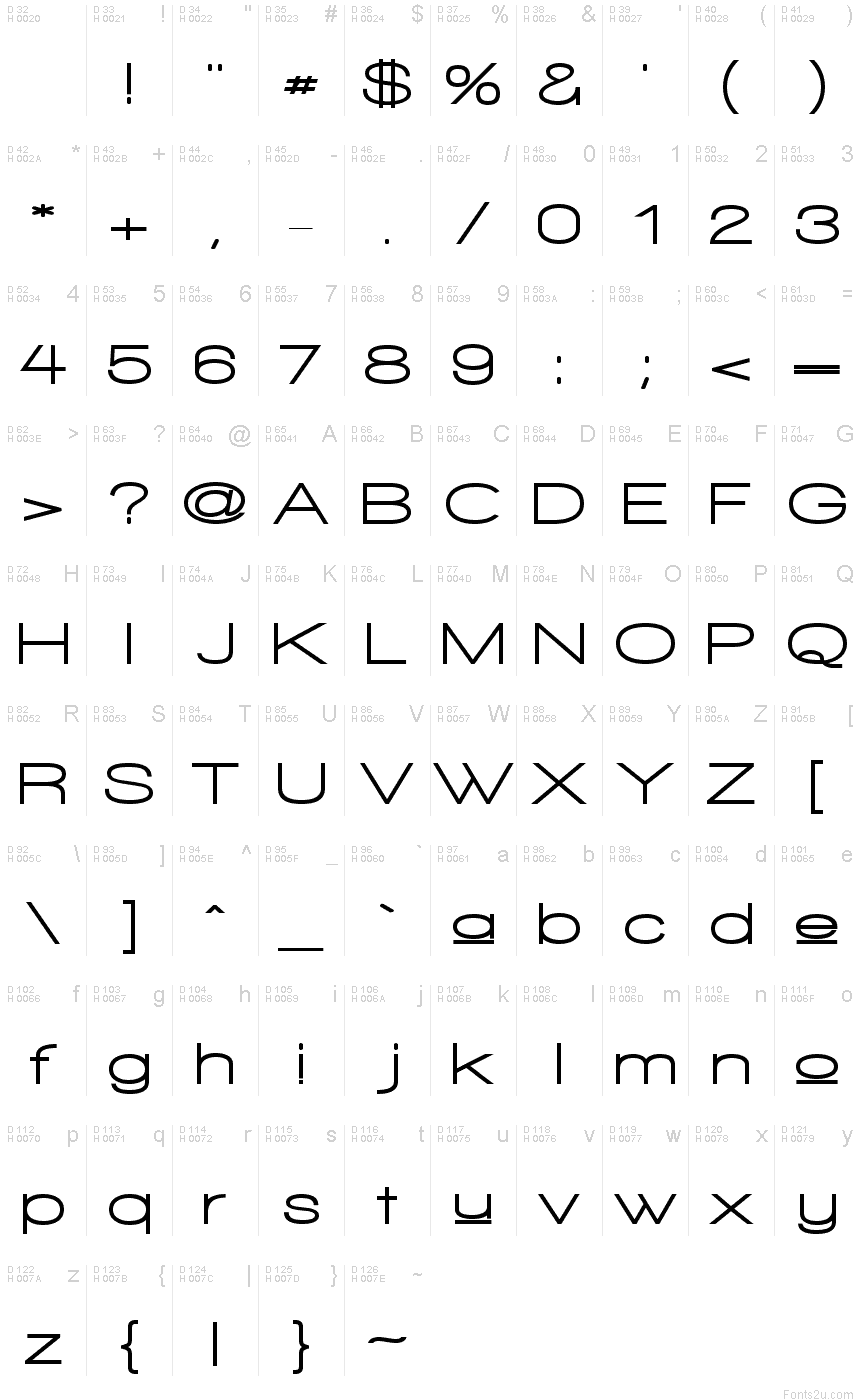
Walkway Upper Expand Ultra
Walkway Upper Expand Ultra, created by G.M. of Walkway, is a free geometric sans serif display font with an exceptionally wide, light silhouette. Its letters are built from clean circles, long diagonals, ruler-straight strokes, and abrupt intersections that resemble precise line drawings. Low joins and open constructions give the lettering a spare, architectural look with a distinctly futuristic edge.
Architecture and contemporary technology are convincing subjects for this design, making it useful for museum posters, electronics branding, and fashion publishing. On album covers and event graphics, the broad angular forms can echo structural photography, wireframe patterns, or sharply cropped abstract illustration.